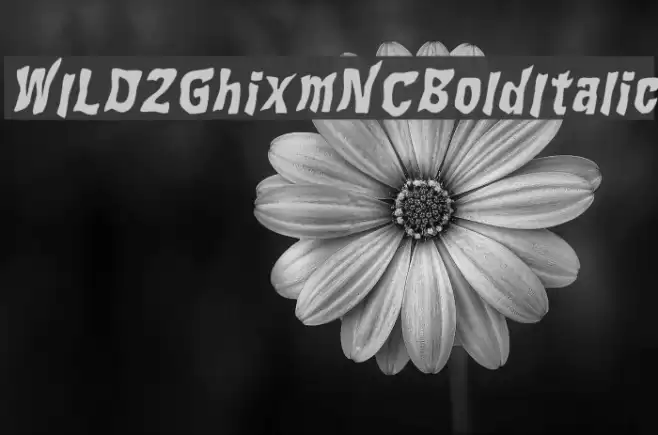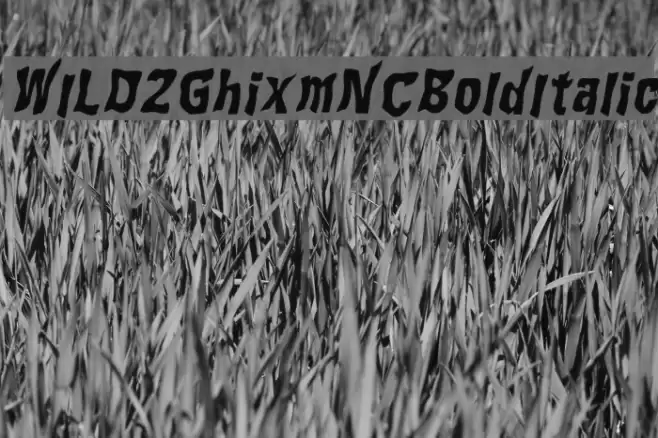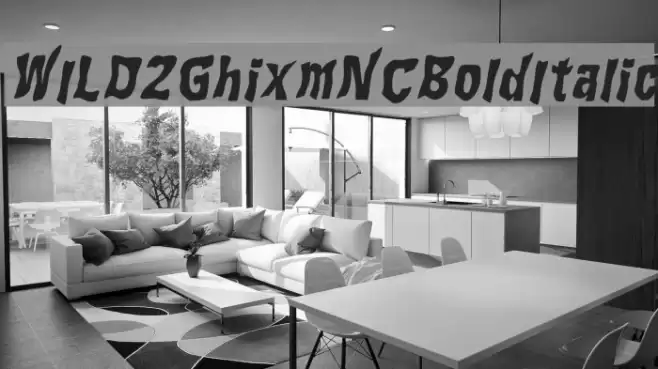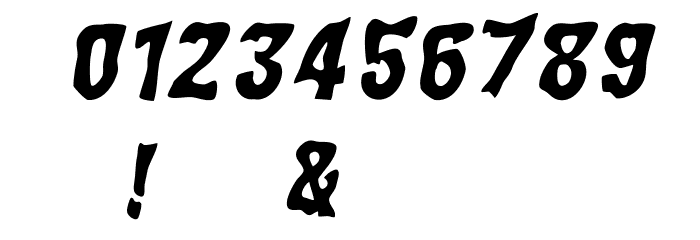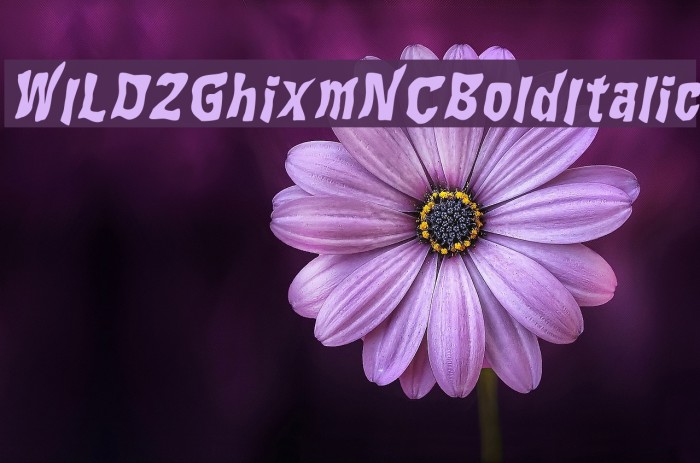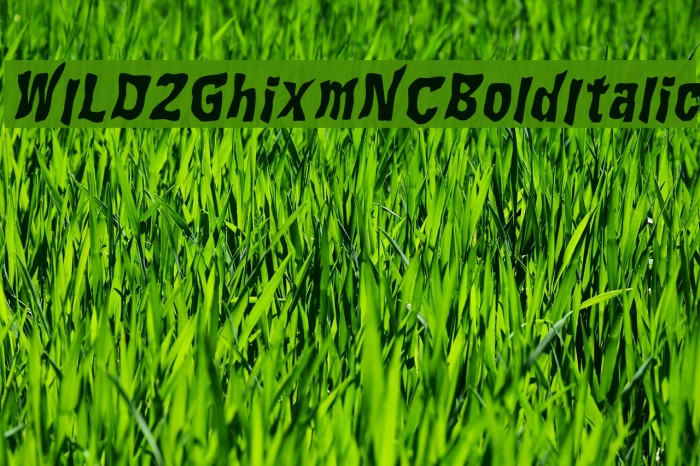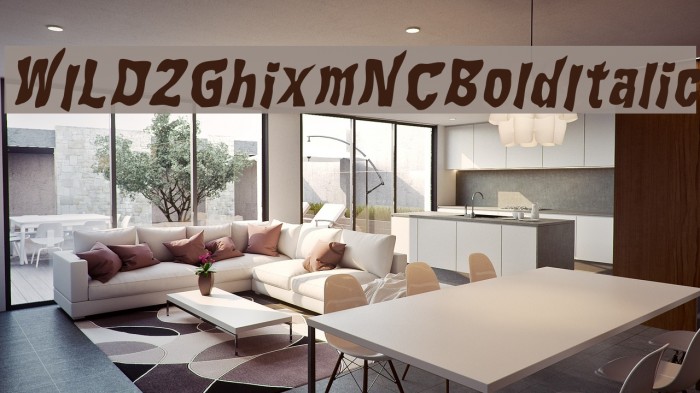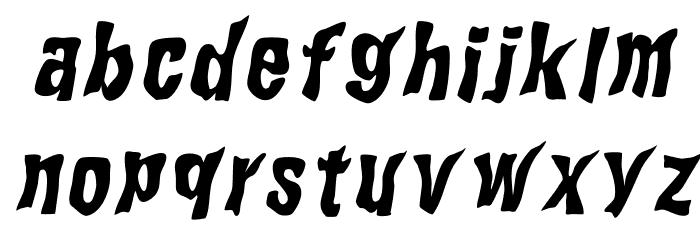
WILD2GhixmNC-BoldItalic Font
WILD2GhixmNC-BoldItalic Description
This font features a bold and italicized style with a distinctive, edgy appearance. The characters have a hand-drawn, slightly irregular form, giving them a dynamic and energetic feel. The uppercase and lowercase letters maintain a consistent style, with sharp angles and varying stroke widths that create a sense of movement. The numbers and special characters follow the same aesthetic, ensuring a cohesive look across all elements. This font's unique design makes it stand out, perfect for projects that require a bold statement.
A bold, italicized font with an edgy, hand-drawn style from Uncategorized fonts.
- Proposed Projects: Ideal for posters, album covers, branding, and any project needing a bold, dynamic look.
- Overall Style: Modern, Decorative